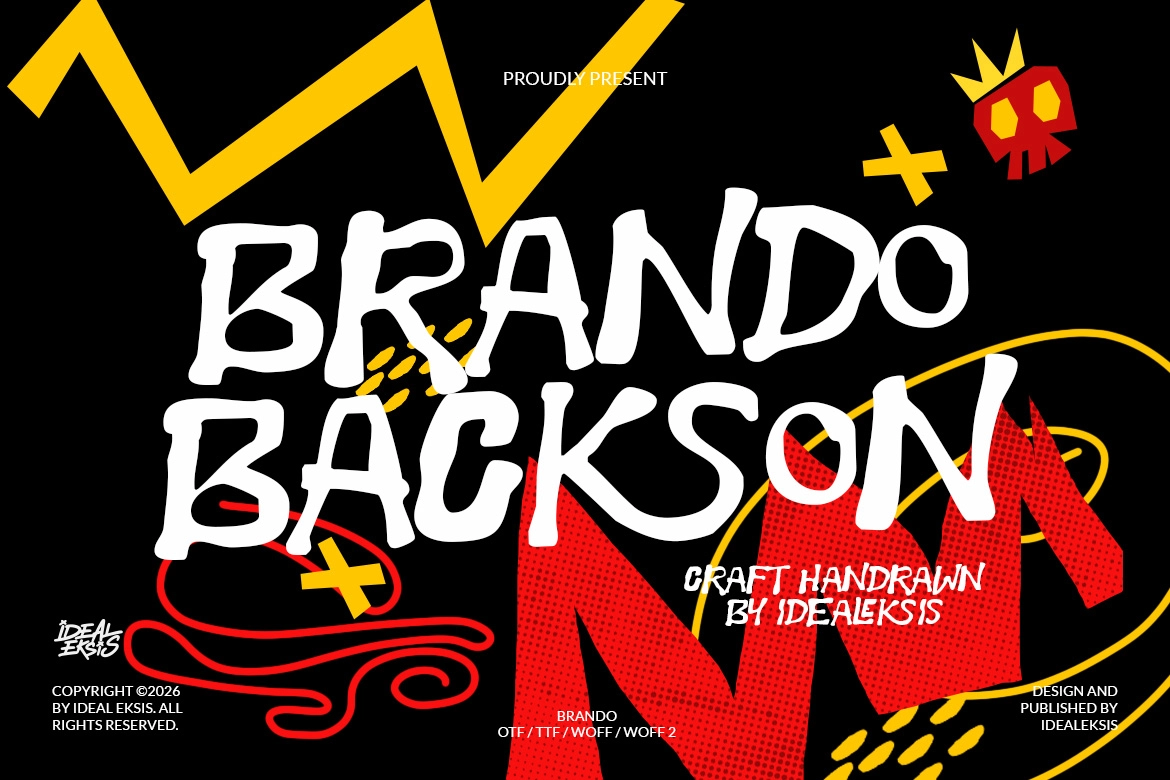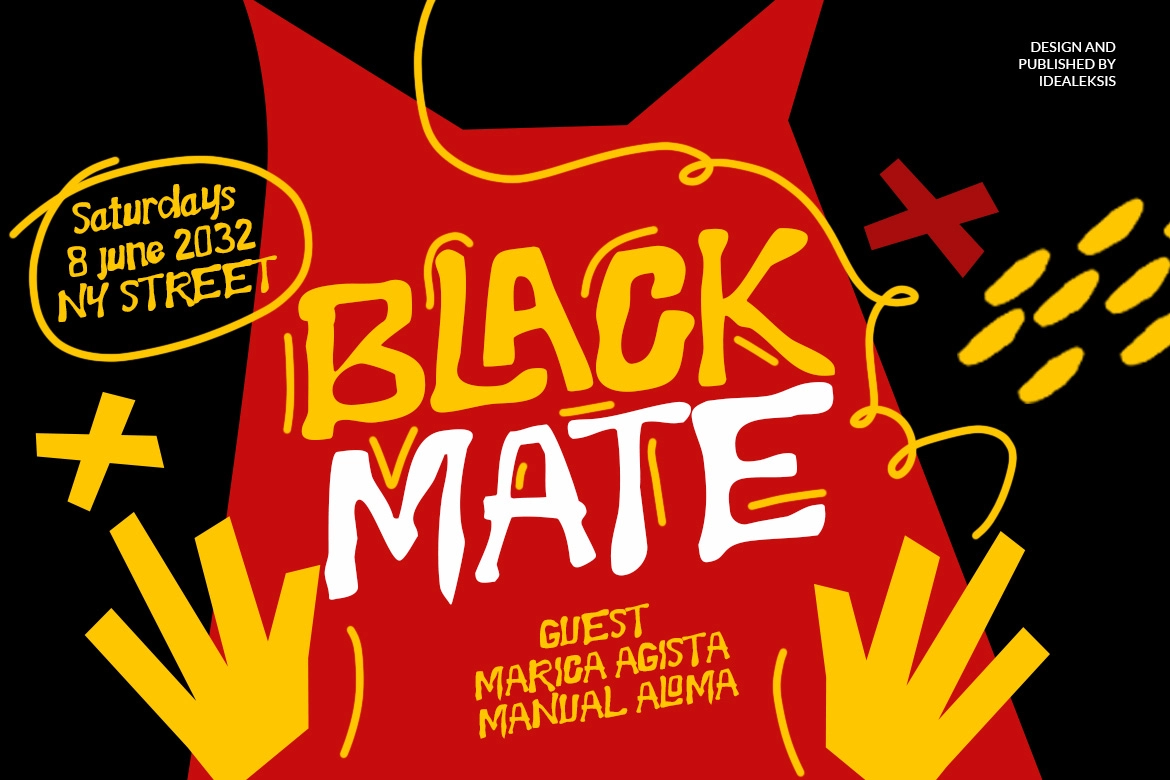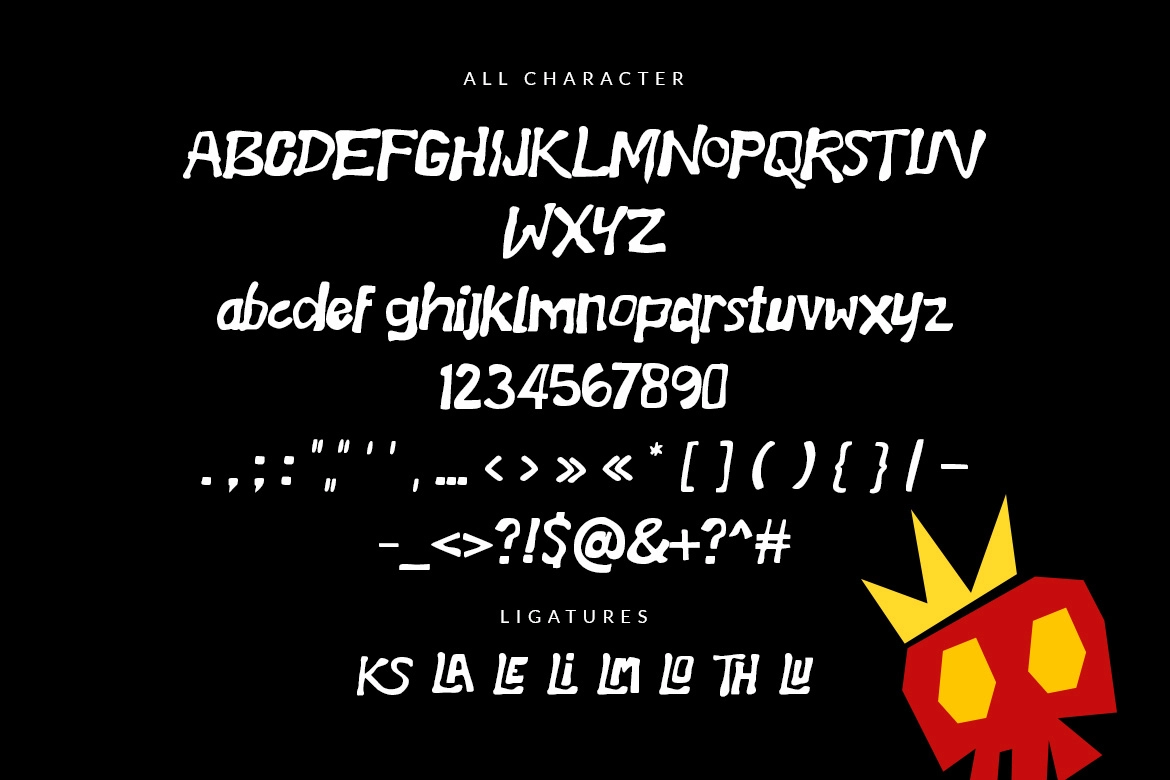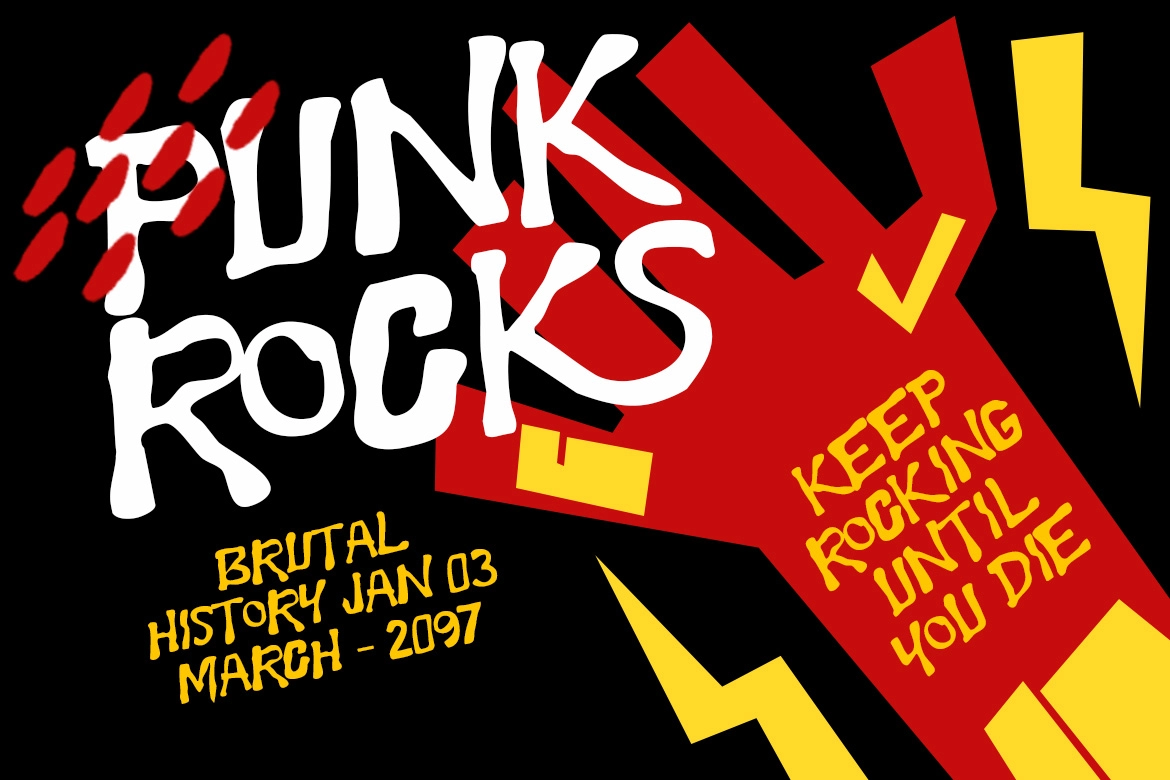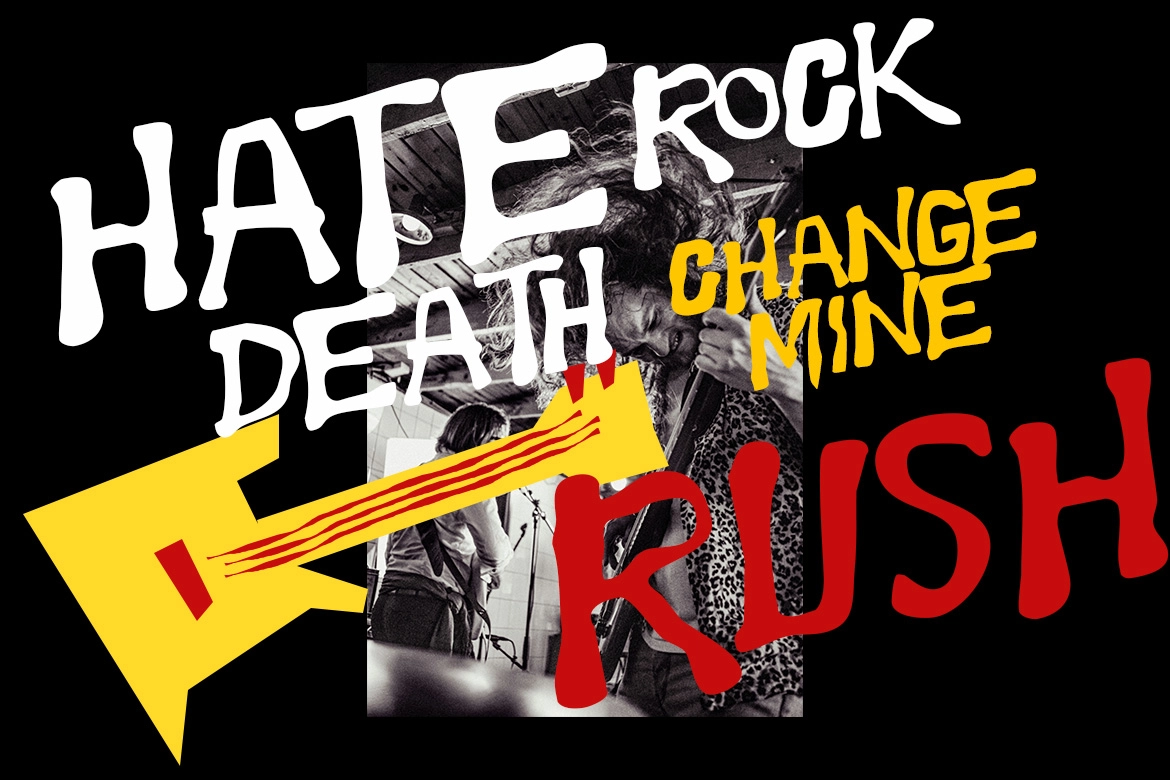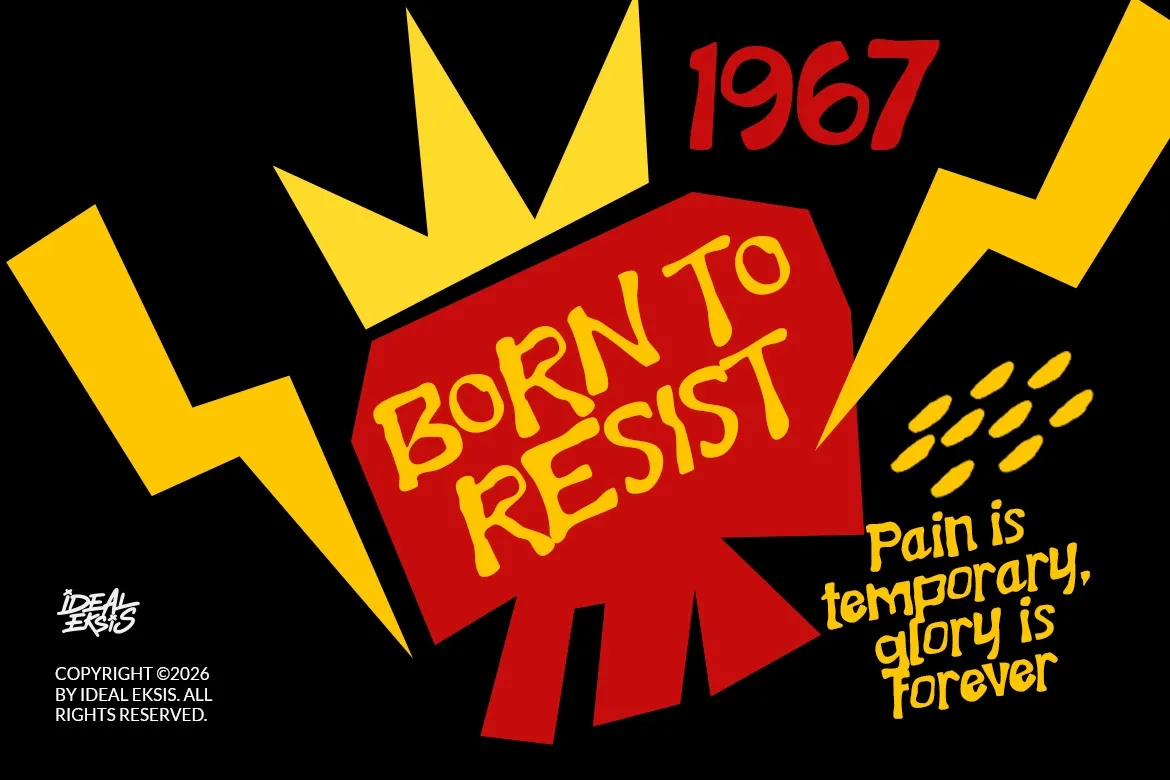
Brando Backson - Playful Hand-Drawn Display Font
Brando Backson
Brando Backson – Playful Hand-Drawn Display Font is a bold and expressive display typeface built from raw hand-drawn strokes and irregular letterforms. Its energetic brush texture and uneven structure create a lively, spontaneous character that feels playful yet rebellious. The thick strokes and organic shapes give the font a strong visual presence while maintaining a fun, handcrafted personality.
Perfect for posters, street-style branding, merchandise, editorial headlines, packaging, and creative campaigns, Brando Backson adds an energetic urban vibe and handcrafted charm to any design project.